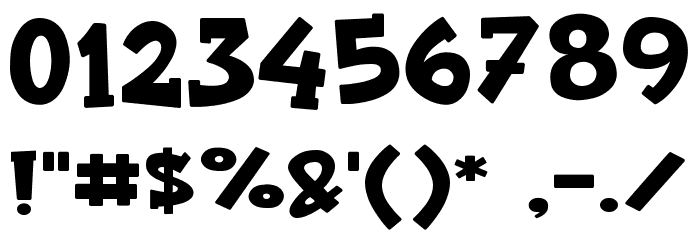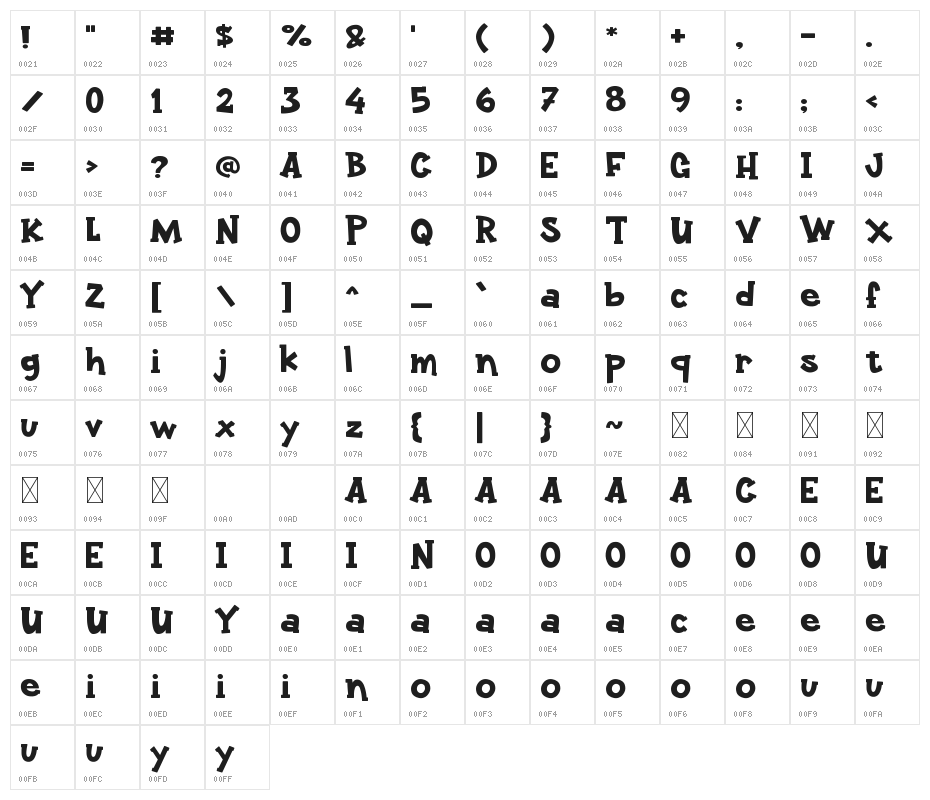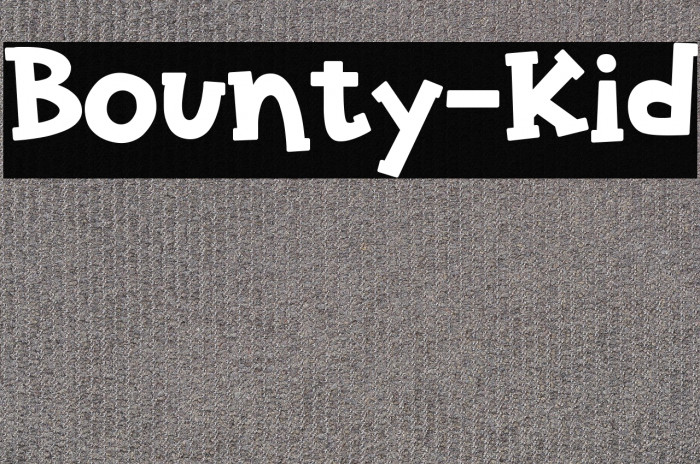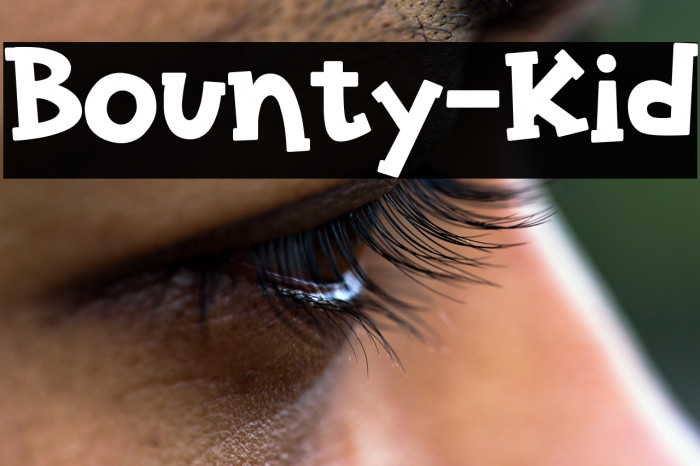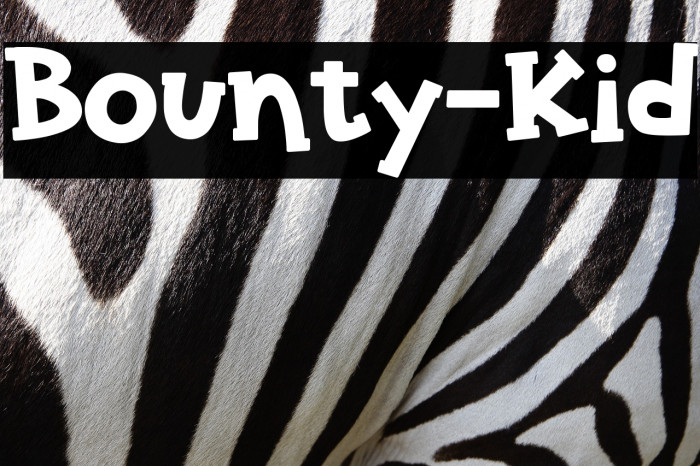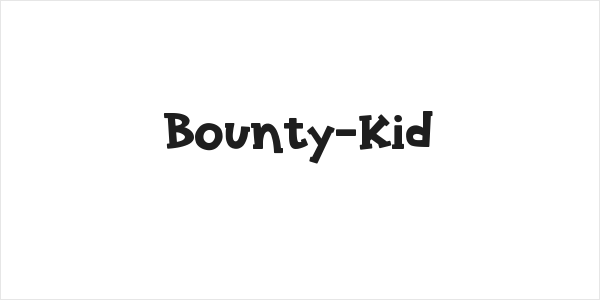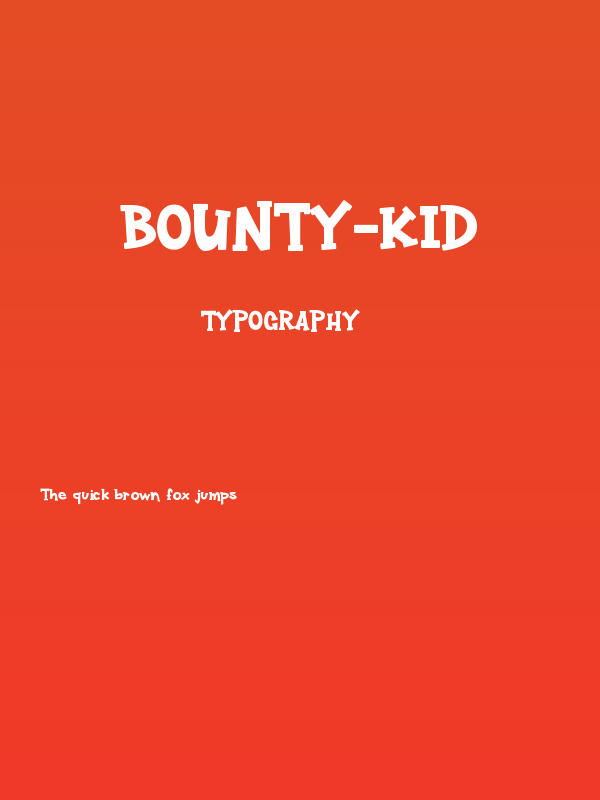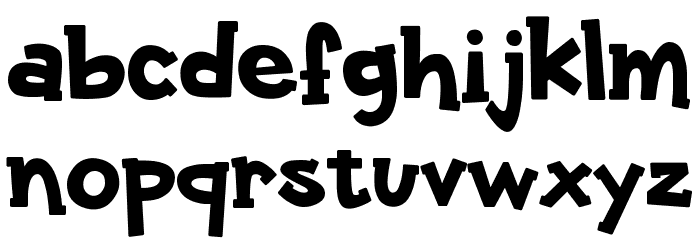
Bounty-Kid Font
Bounty-Kid Description
This playful and bold font features a whimsical and cartoonish style, characterized by its thick, uneven strokes and exaggerated curves. The letters have a hand-drawn appearance, giving them a lively and energetic feel. The uppercase and lowercase characters maintain a consistent style, with a slightly irregular baseline that adds to the font's charm. The numbers and special characters are equally expressive, making them suitable for creative and informal designs. The font's unique personality makes it ideal for projects that require a fun and engaging visual impact.
| Overall Style | Playful, Cartoonish |
| Proposed Projects | Ideal for children's books, comic strips, playful branding, and party invitations. |